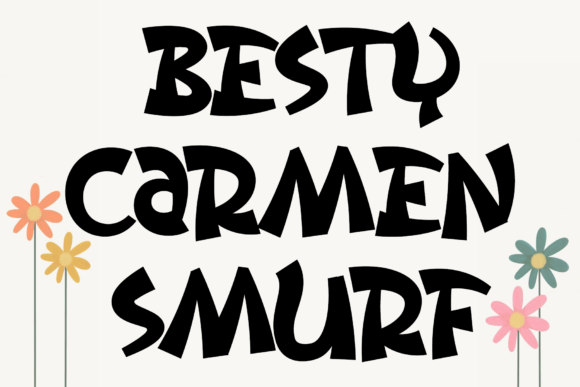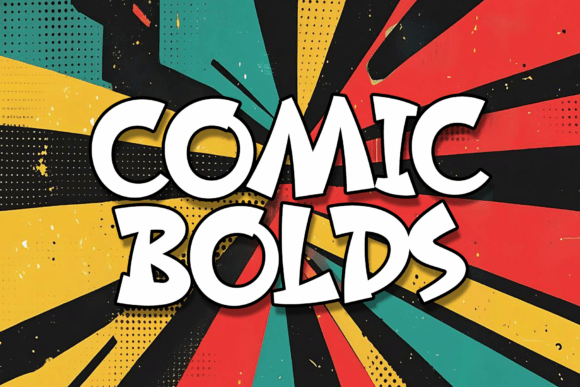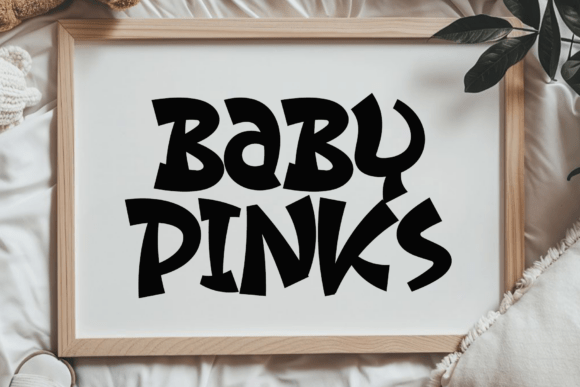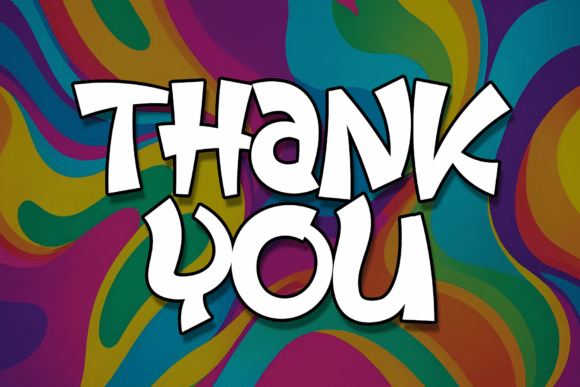
Introduction to Queen Smart Font
The moment of truth: you’re staring at a blank canvas, eager to bring your creative vision to life. Your mind is racing with ideas, and the perfect font is the key to unlocking the entire design. For many designers, this is the moment of truth – the moment when the right font can elevate an entire project from bland to grand. And that’s exactly where the Queen Smart Font comes in.
This stunning handmade font is more than just a design resource – it’s a game-changer. With its bold, high-energy silhouette and playful, retro-inspired design, the Queen Smart Font is perfect for adding a touch of personality to your next creative project. Whether you’re working on a high-impact social media header, a trendy apparel graphic, or a modern event poster, this font is sure to make a statement.
Key Features of Queen Smart Font
- High-quality design resource with a transparent background, perfect for creative projects
- Includes a range of styles and weights, allowing designers to experiment with different font combinations
- Queen Smart Font is available in 8 different font styles, with each style available in 5 different font weights, providing a total of 40 font variations
- Resolution-independent design ensures that the font remains clear and legible at various sizes and resolutions
- Perfect for use in digital and print projects, including logos, branding materials, and creative content
Honest Review: Queen Smart Font
I recently stumbled upon the Queen Smart Font, a design resource that’s been making waves in the creative community. After putting it to the test, I’m excited to share my honest review.
What works well: ✨ The Queen Smart Font is a high-quality, versatile font that’s perfect for a wide range of creative projects. It’s available for free download, making it an attractive option for designers on a budget. The font’s sleek, modern design makes it an excellent choice for anything from business cards to digital displays. I was particularly impressed by the font’s ability to work seamlessly on both light and dark backgrounds, including transparent backgrounds.
What could improve: ⚠️ While the Queen Smart Font is a solid design resource, I did encounter some limitations. The font’s style may not be to everyone’s taste, and some users may find it too minimalist. Additionally, the font’s character set is somewhat limited, which may make it less suitable for projects that require a wide range of characters.
Overall, I’m impressed by the Queen Smart Font’s potential and versatility. While it may not be perfect, it’s a great option for designers looking for a high-quality, free font that can add a touch of elegance to their creative projects.
- High-quality, modern design
- Works well on transparent backgrounds
- Perfect for business cards, digital displays, and other creative projects
Tips for Getting the Most Out of Queen Smart Font
Queen Smart Font is a versatile design resource that can be used for a variety of creative projects. To get the most out of it, try combining it with other design elements such as graphics, images, and shapes. You can also experiment with different font sizes, colors, and alignments to create unique and eye-catching designs.
Queen Smart Font is a popular choice for designers and creatives due to its high quality and versatility. Some common use cases include: